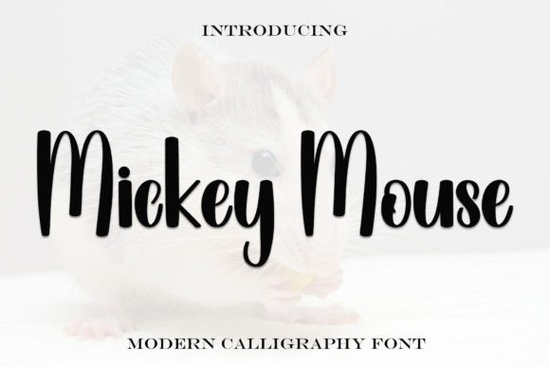
If you're looking for a font that brings a cheerful and friendly vibe to your designs, the Mickey Mouse Font is a great choice. This playful, handwritten style font features thick, rounded letters that look like they were drawn by hand, making it perfect for adding a fun and lively touch to any project.
Why Choose Mickey Mouse Font?
The Mickey Mouse Font is ideal for designers, crafters, print-on-demand sellers, and small businesses who want to create a lighthearted and engaging aesthetic. Its bold and rounded letters make it easy to read and visually appealing, which can help draw attention to your designs.
When to Use Mickey Mouse Font
Here are some scenarios where the Mickey Mouse Font can be particularly effective:
- Children's Invitations: Perfect for birthday parties, school events, or any occasion aimed at kids.
- Branding and Logos: Ideal for creating a friendly and approachable brand identity, especially for businesses that cater to families and children.
- Print-on-Demand Products: Use it on t-shirts, mugs, and other merchandise to add a playful and inviting feel.
- Social Media Graphics: Enhance your posts with a font that stands out and captures the eye, making your content more shareable.
How to Incorporate Mickey Mouse Font into Your Designs
Incorporating the Mickey Mouse Font into your designs is straightforward. Here are some tips to get the most out of this font:
- Choose the Right Background: A clean, simple background can help the font stand out. Avoid busy or cluttered backgrounds that might overshadow the playful nature of the font.
- Balance with Other Fonts: Pair the Mickey Mouse Font with simpler, more neutral fonts to create a balanced and harmonious design. For example, you could use a script font like Masterline Calligraphy for a more elegant touch.
- Use Color Wisely: Bright, vibrant colors can complement the playful style of the font. Consider using a color palette that aligns with the theme of your project, such as pastel colors for a soft, gentle look or bold primary colors for a more energetic feel.
- Test Readability: While the Mickey Mouse Font is fun and lively, it’s important to ensure that it remains readable, especially in smaller sizes. Test your design with different sizes and spacing to find the best balance.
Alternatives and Complementary Fonts
If you’re looking for other fonts to complement or provide an alternative to the Mickey Mouse Font, here are a few options:
- Wednesday Font: A versatile script font that adds a touch of elegance while still being playful.
- Florist Perfect Font: A charming, handwritten-style font that works well for floral and nature-themed designs.
- Amibas Font: A unique, modern script font that can add a contemporary twist to your projects.
- Amberly Route Font: A clean, minimalistic font that can balance the boldness of the Mickey Mouse Font.
Final Tips for Using Mickey Mouse Font
To make the most of the Mickey Mouse Font in your projects, keep these final tips in mind:
- Stay True to the Theme: Use the font in contexts that match its playful and friendly nature, such as children's designs or casual, fun projects.
- Experiment with Layouts: Try different layouts and compositions to see how the font interacts with other elements in your design. This can help you find the most visually appealing arrangement.
- Feedback and Testing: Get feedback from others and test your designs in different settings to ensure they look great and are easy to read.
By following these tips, you can effectively use the Mickey Mouse Font to add a cheerful and friendly vibe to your designs, making them stand out and resonate with your audience.